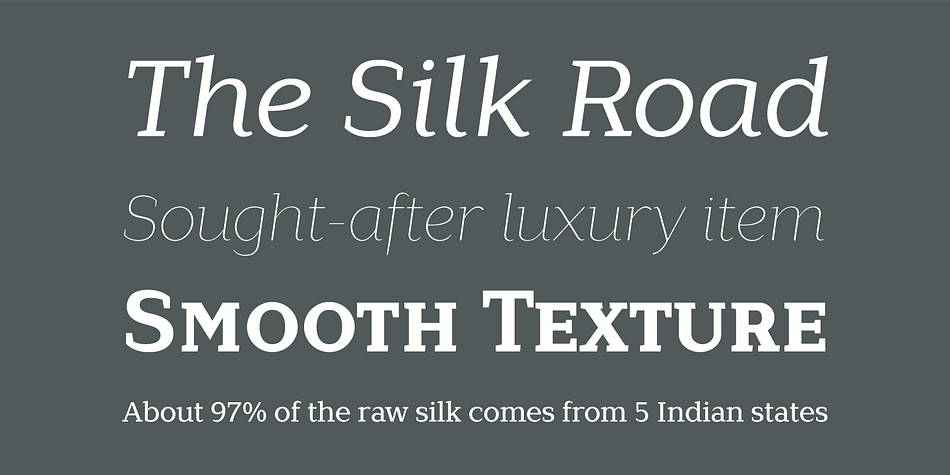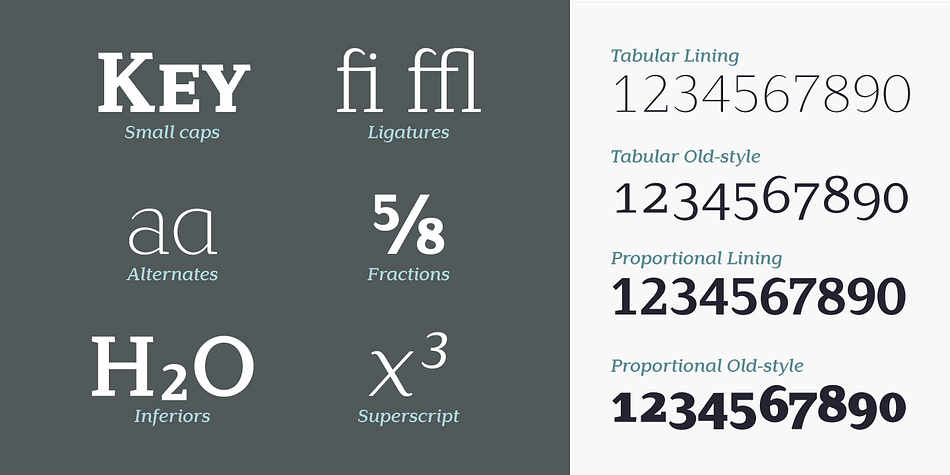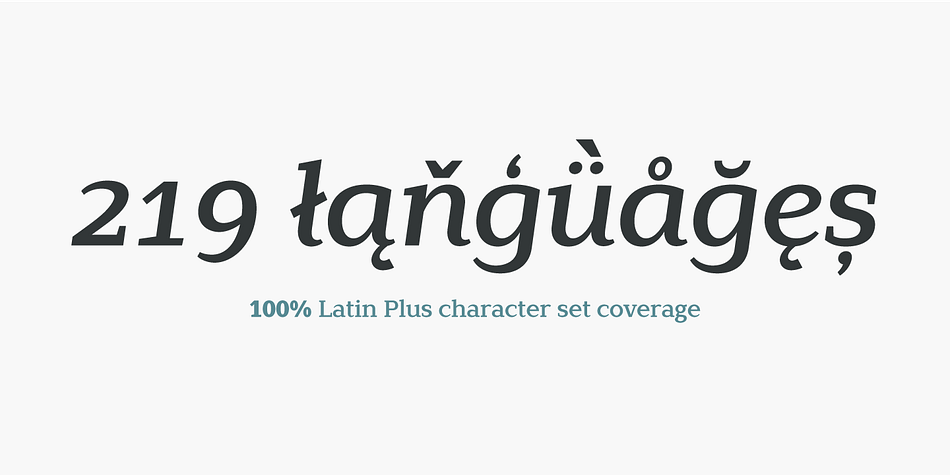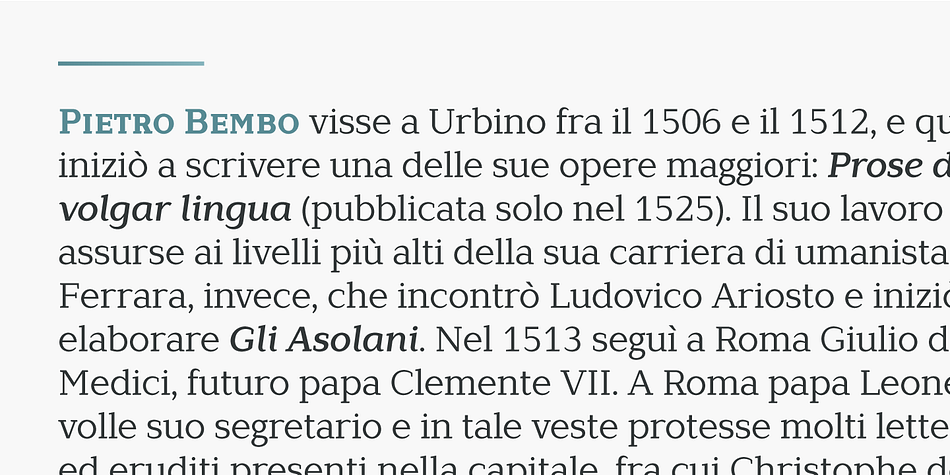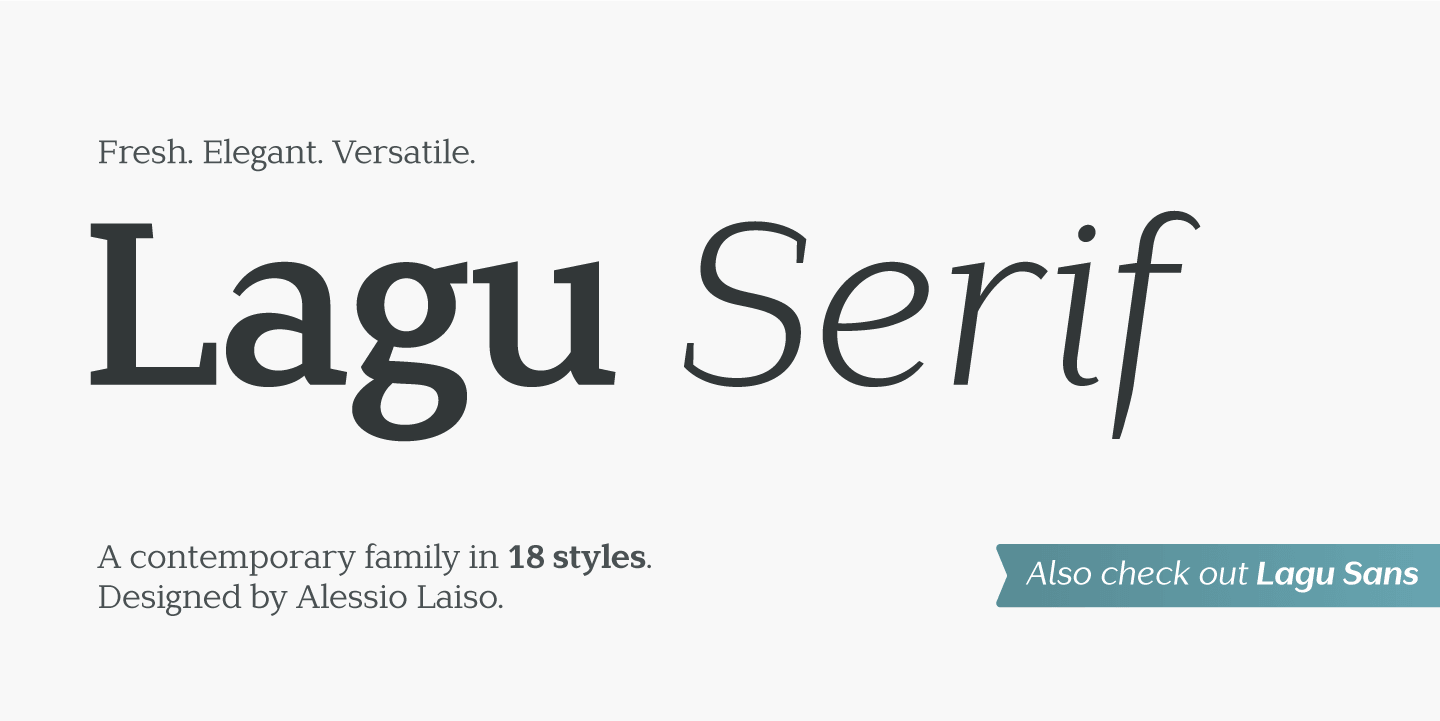
Lagu Serif is a serif font family. This typeface has eighteen styles and was published by Alessio Laiso Type.
Lagu Serif blends a geometric inspiration with warm humanist elements, making it the perfect choice for when you need a fresh, contemporary serif typeface. Alessio Laiso has designed Lagu Serif in 18 styles: 9 weights ranging from Thin to Black, with matching, beautiful italics. The companion Lagu Sans makes the Lagu family a real workhorse for any use, including web, digital, print, branding and signage.
Lagu Serif has a large x-height and open counterforms, making it easily readable. It comes with powerful OpenType features, including ligatures, alternative glyphs, small caps, fractions, tabular figures, old-style figures, and more. The Lagu family supports 219 languages, covering 100% of the Latin Plus character set.